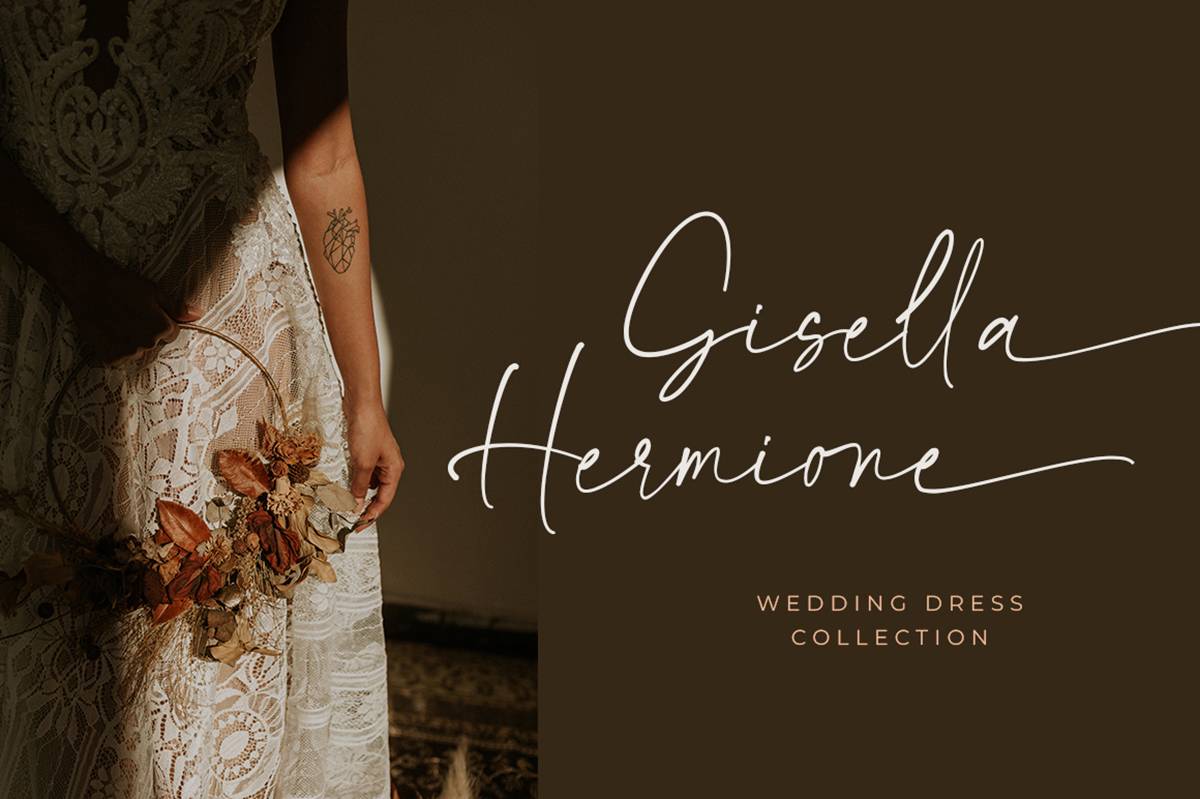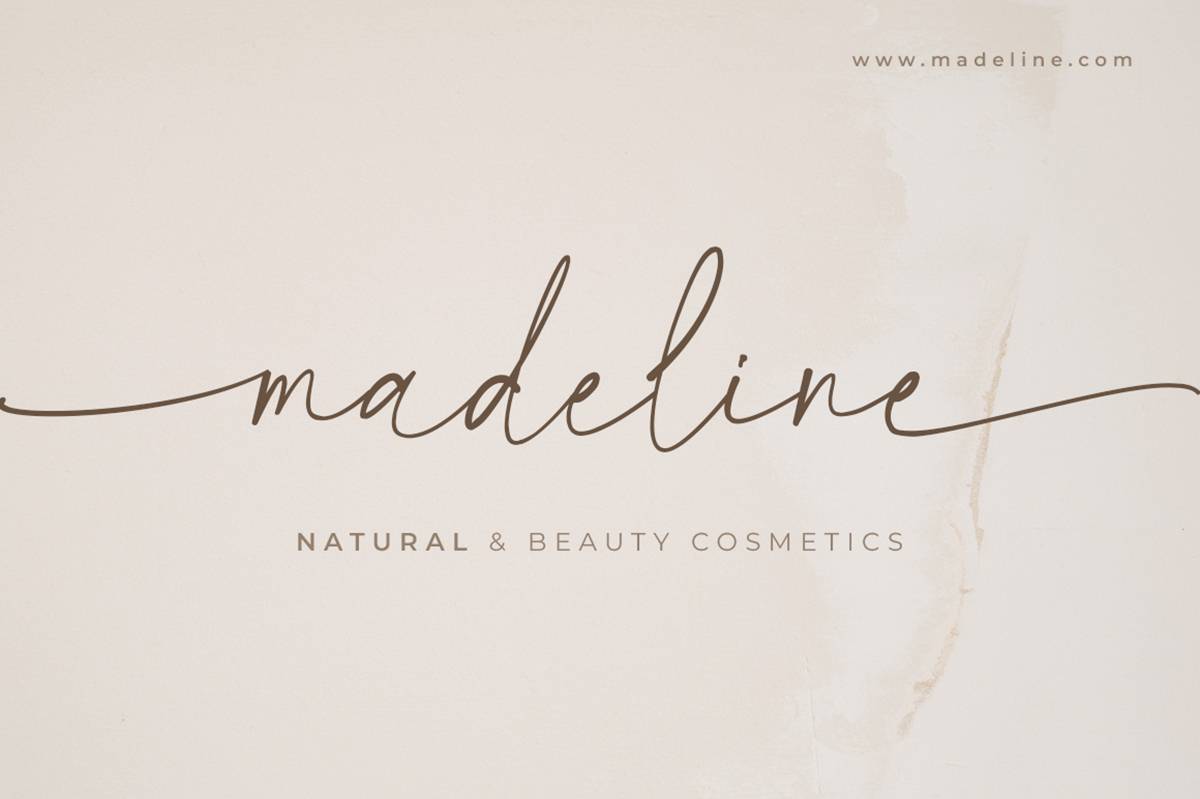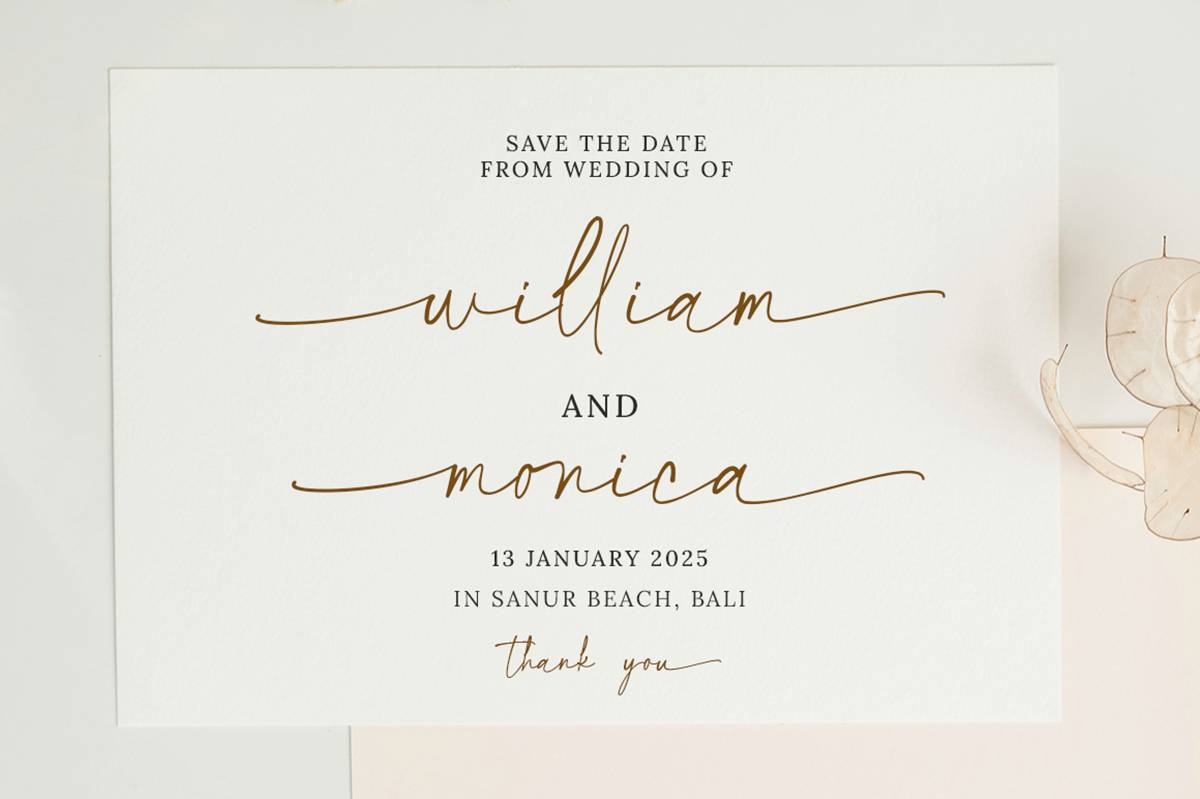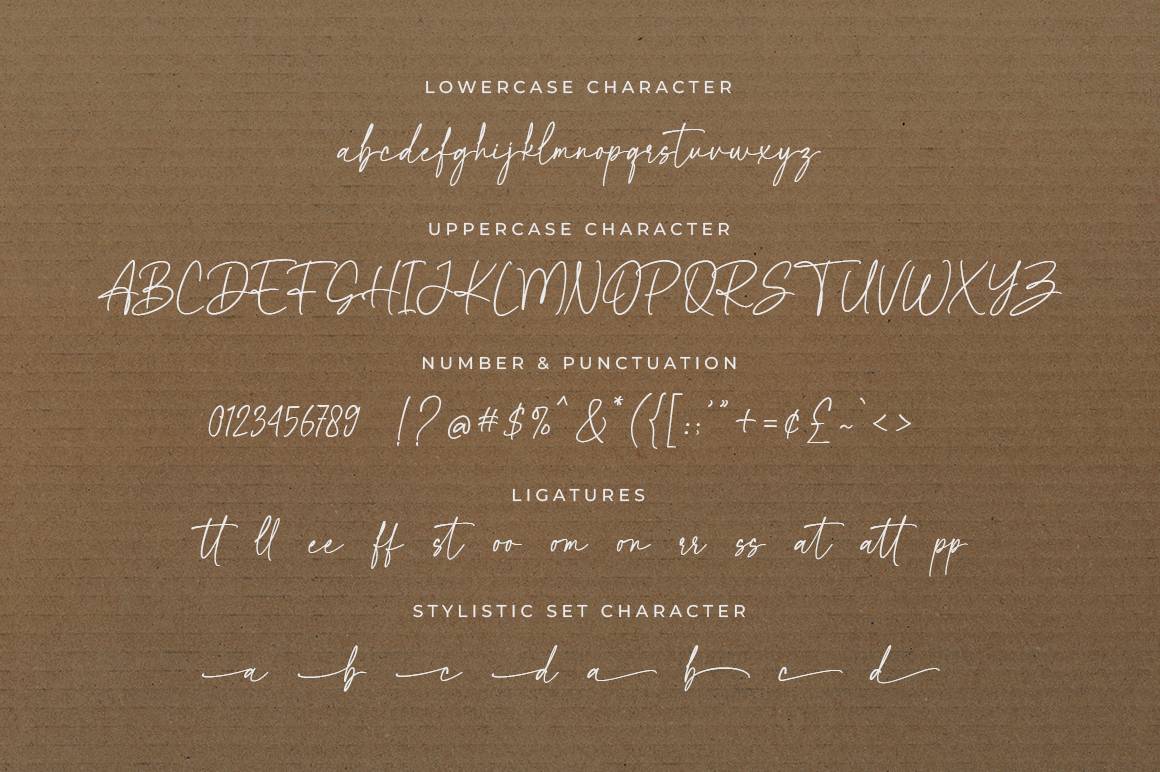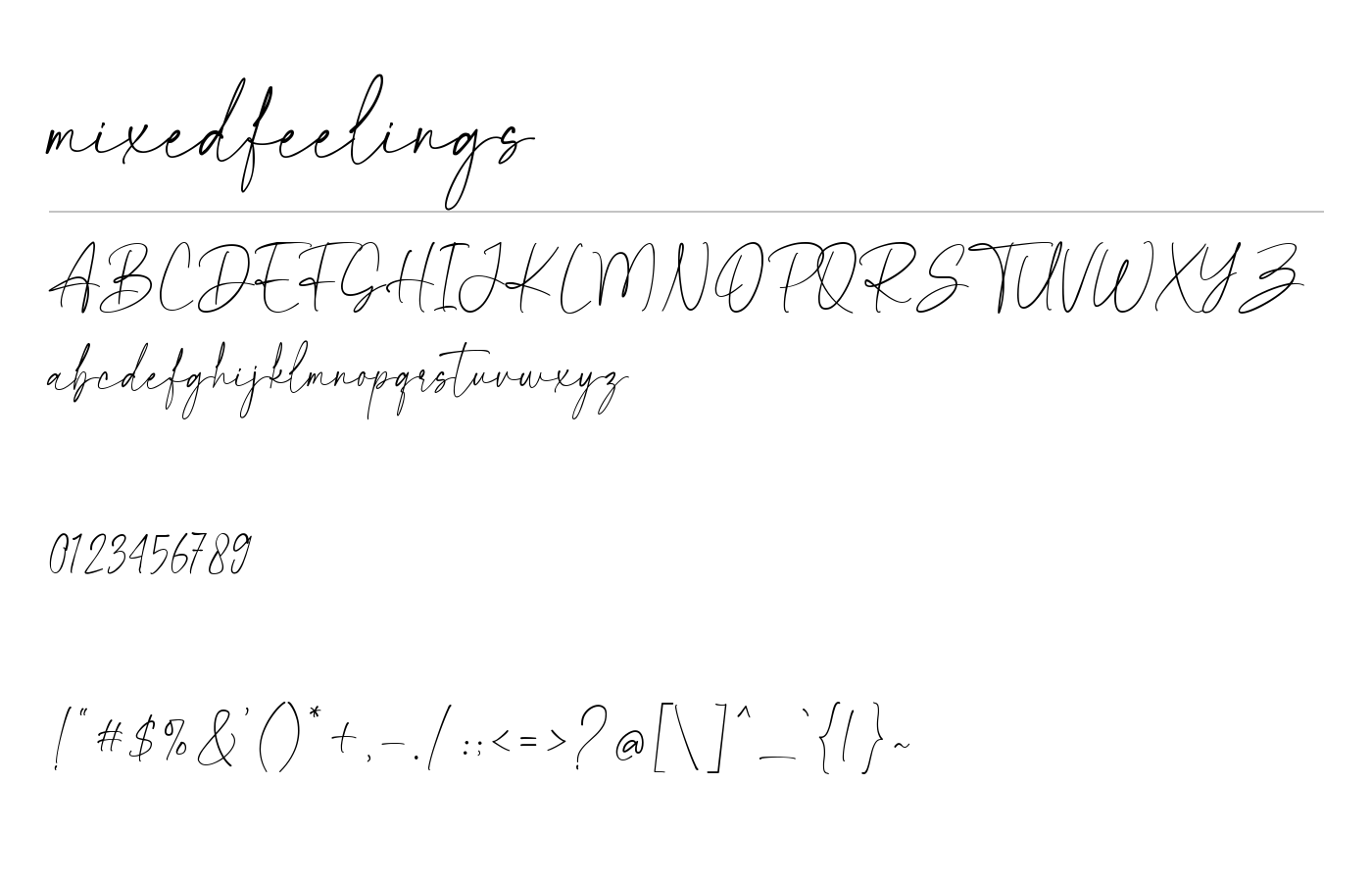
Mixed Feelings is a delicate, handwritten script font characterized by its thin, flowing lines and elegant, slightly whimsical letterforms. Its high, airy x-height combined with varied stroke widths gives it a personal, artistic feel that works beautifully for invitations, branding, and creative projects seeking a touch of sophistication and charm. This font shines in designs that require a refined yet approachable handwritten style, making it ideal for fashion, lifestyle, and boutique branding.
Mixed Feelings Font
About Mixed Feelings Font